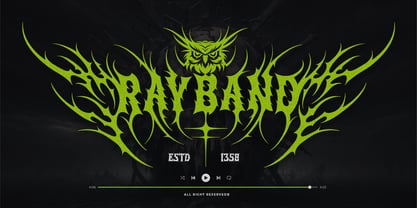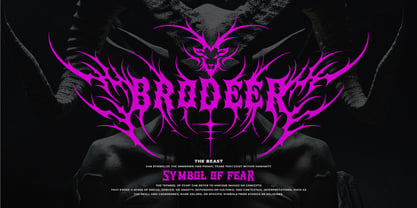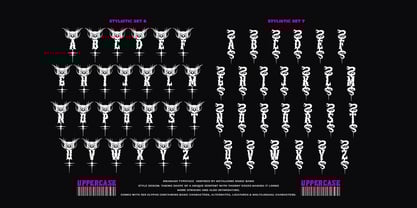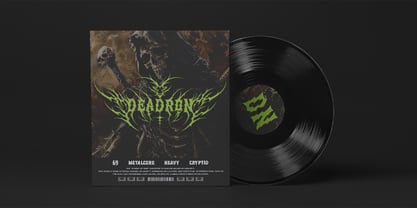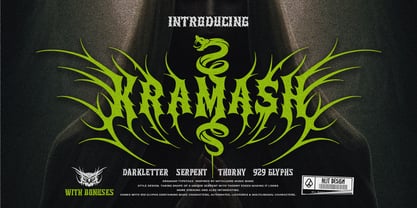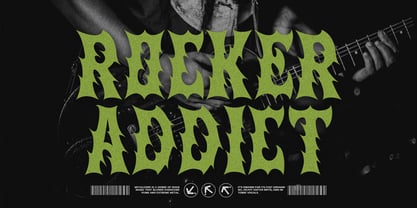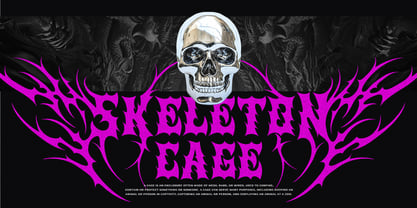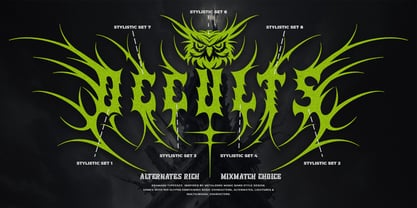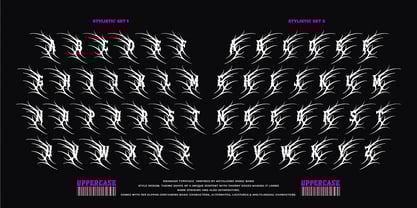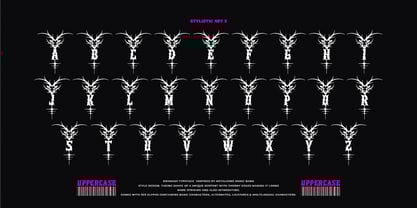
Kramash
KRAMASH Typeface – Where Serpent Strikes Meet Metalcore Fury
Enter the abyss with Kramash, a bold and brutal display typeface born from the depths of metalcore chaos. Designed for those who crave intensity, attitude, and visual impact, Kramash merges ancient darkletter traditions with the modern aggression of thorn-wrapped serpents — creating a font that feels alive, dangerous, and untamed.
Inspired by the raw energy of underground music scenes, this typeface doesn't just speak — it screams with a venomous elegance. Each glyph is carefully sculpted with razor-sharp spines and sinuous curves, echoing the form of a coiled serpent ready to strike. The result? A visually fierce yet surprisingly legible font that commands attention without sacrificing clarity.
🔥 Design Attributes
• Darkletter Influence: Rooted in gothic calligraphy but evolved with brutal, contemporary flair.
• Serpentine Form: Letters shaped to mimic the flow of a serpent — coiling, twisting, and wrapping around with fierce thorns.
• Striking Details: The sharp, flame-like terminals give every word a sense of danger and motion.
🛠️ Powerful Font Features
• 929 Glyphs: A massive set of characters including uppercase, lowercase, numerals, punctuation, and special symbols to cover every layout and language need.
• Alternates: Multiple stylistic variations for select characters, giving you creative freedom and versatility for every project.
• Ligatures: Custom letter combinations that seamlessly connect characters, enhancing the aesthetic without breaking the tone.
• Multilingual Support: Covers a wide range of Latin-based languages, ensuring your message can cross borders while staying heavy.
Whether you’re designing for music, media, or merchandise, Kramash delivers an unforgettable aesthetic — the perfect fusion of brutality and control. It's more than a typeface; it's a visual weapon ready to amplify your message and electrify your design.